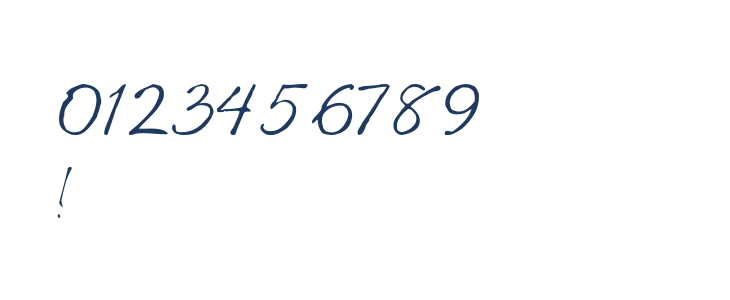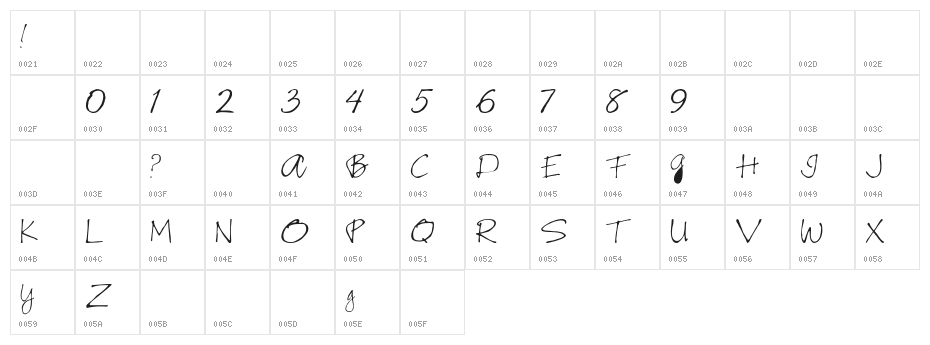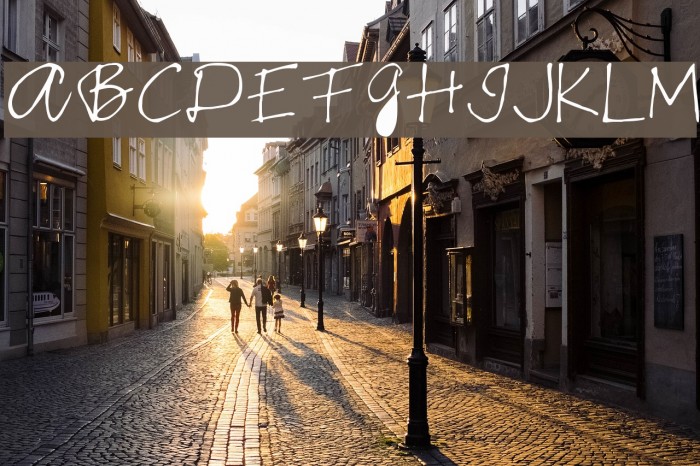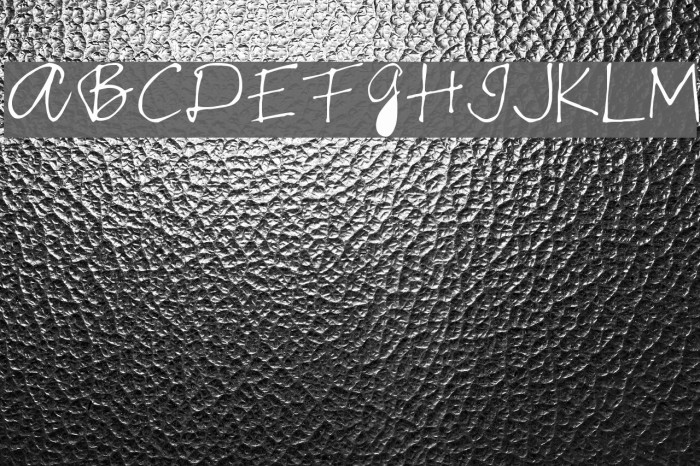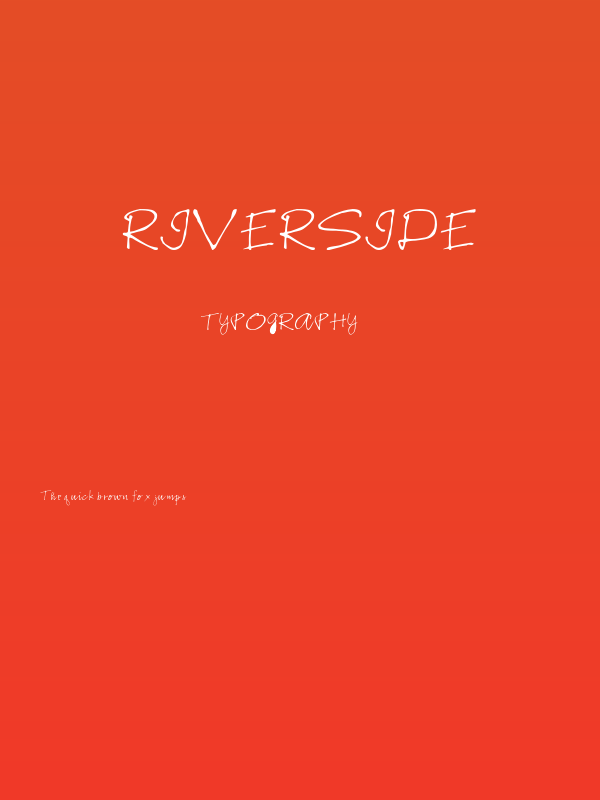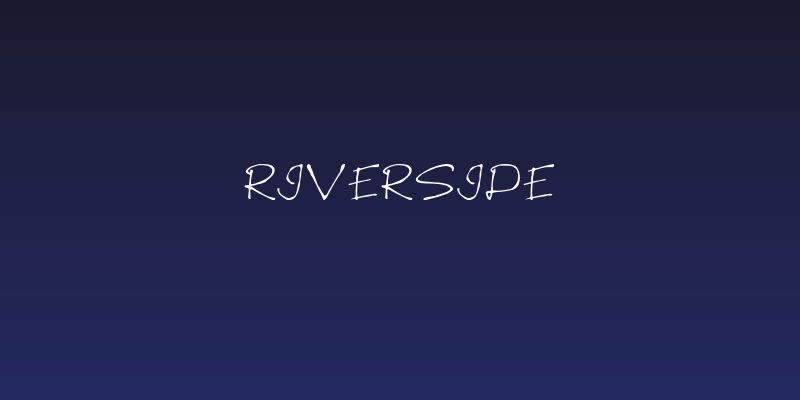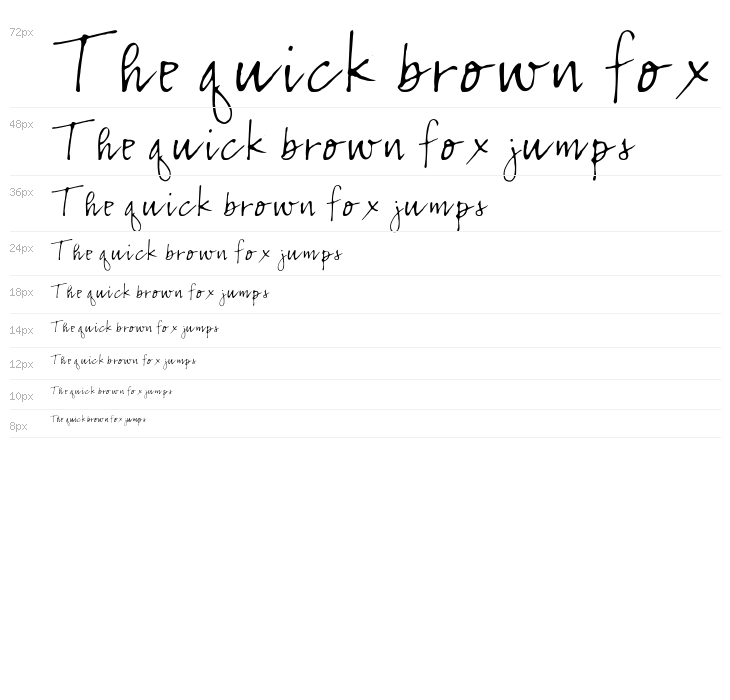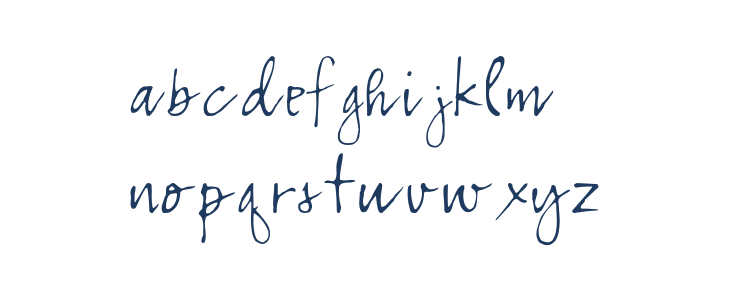
Riverside Font
Riverside Description
This font features a handwritten style with a casual and flowing appearance. The letters are slightly slanted, giving it a dynamic and lively feel. The strokes vary in thickness, adding a touch of elegance and personality. The uppercase letters are distinct and bold, while the lowercase letters maintain a consistent flow, enhancing readability. The numerals are clear and well-defined, complementing the overall style. This font's unique character makes it suitable for creative and artistic projects.
| Overall Style | Casual, Artistic |
| Use Case | Headlines, Invitations, Personal Branding |
| Proposed Projects | Ideal for greeting cards, invitations, personal branding, and artistic projects. |